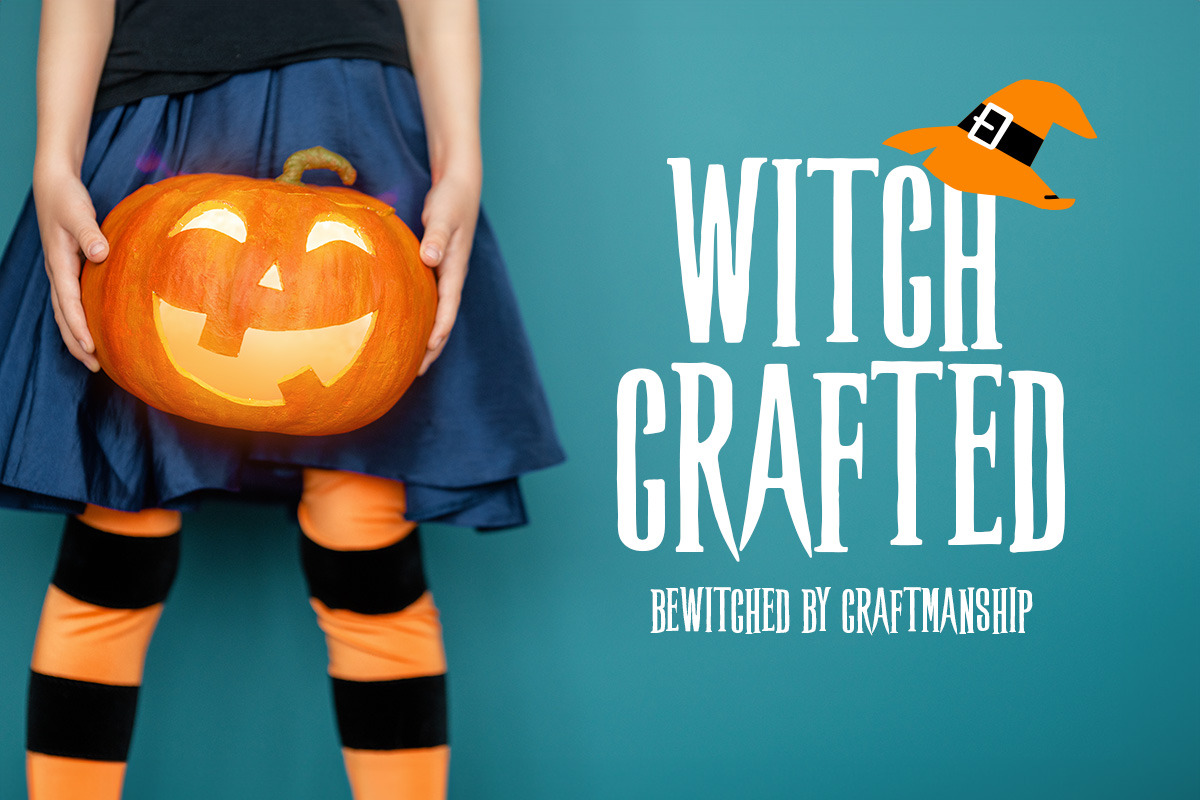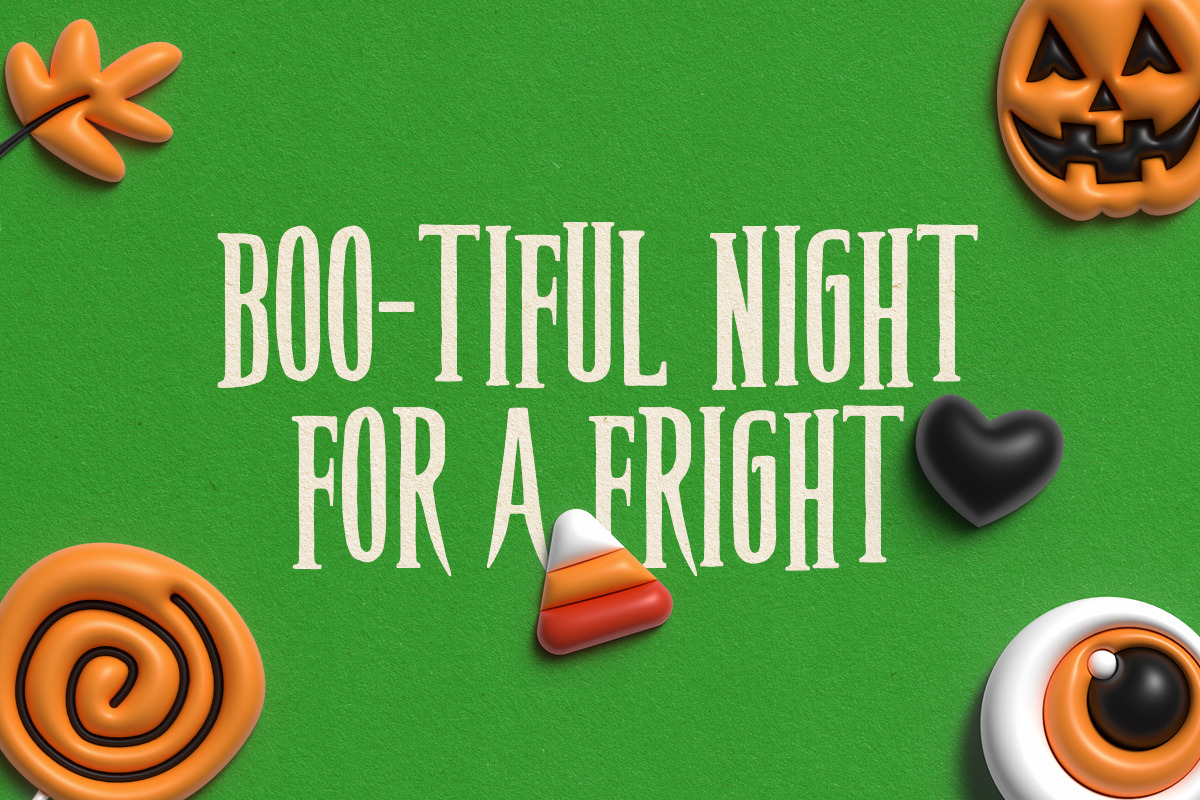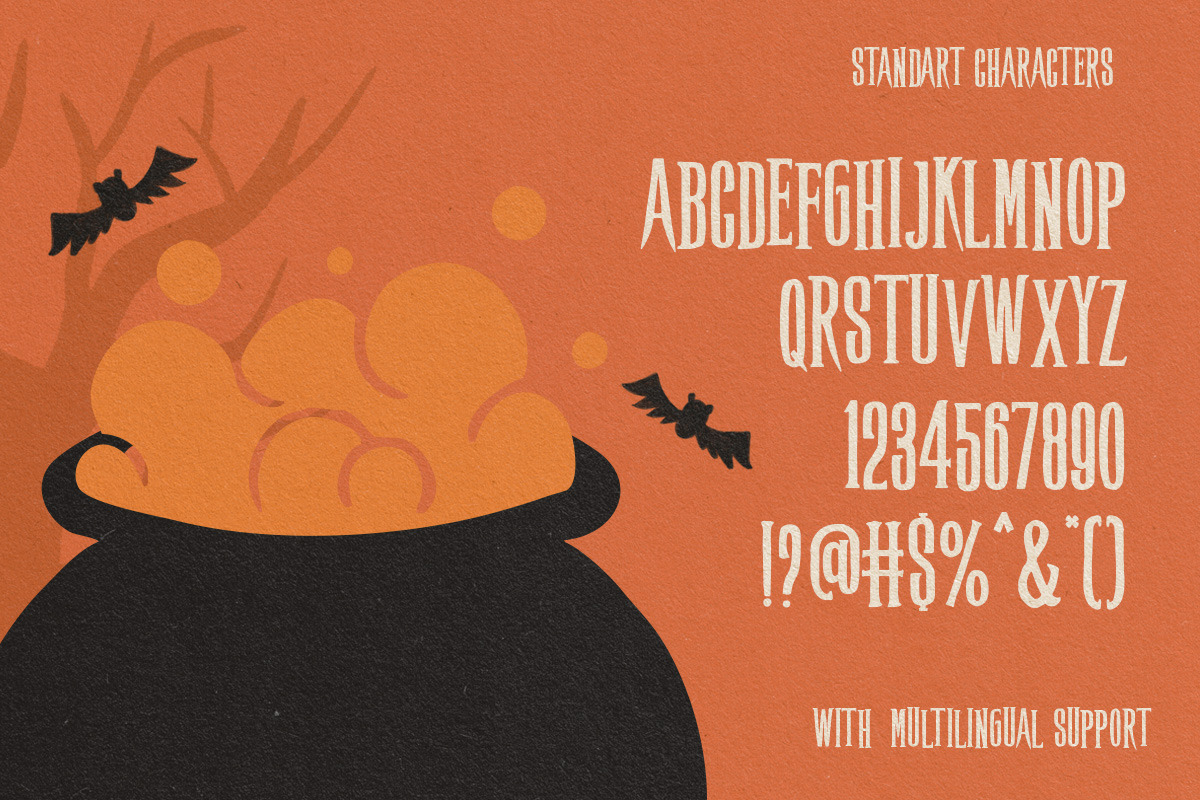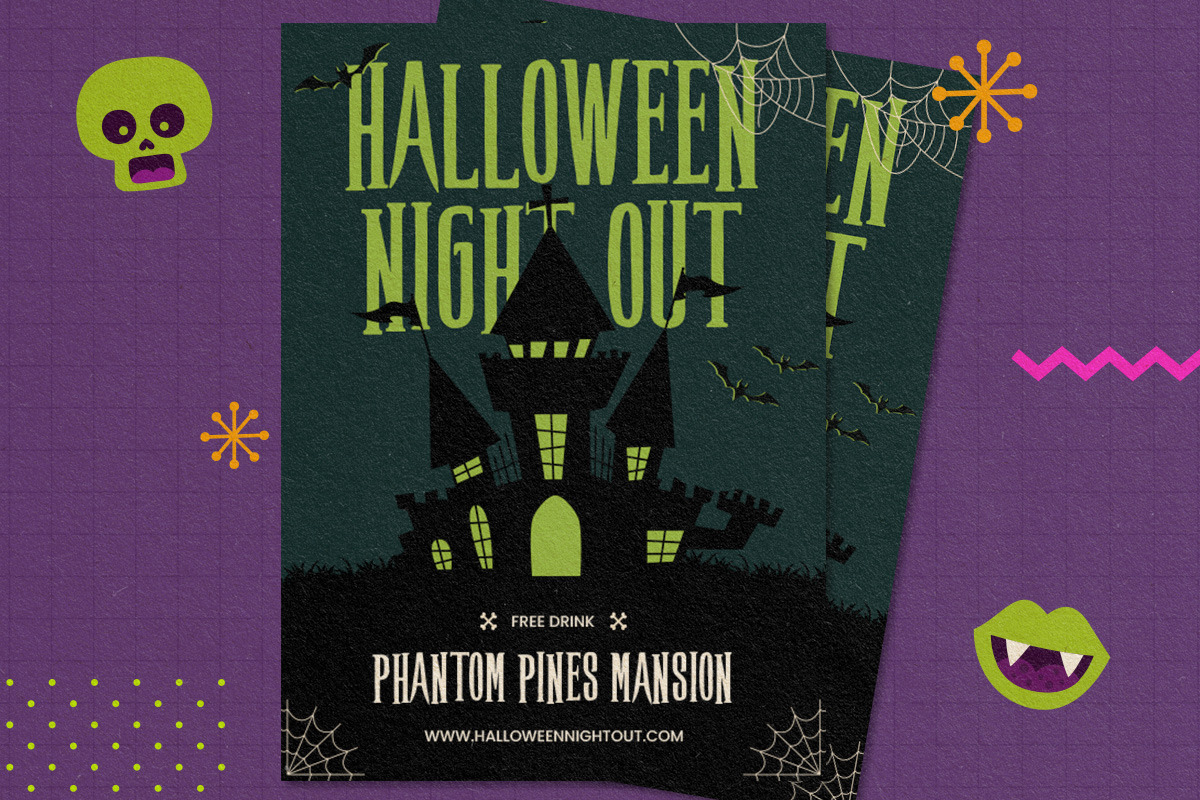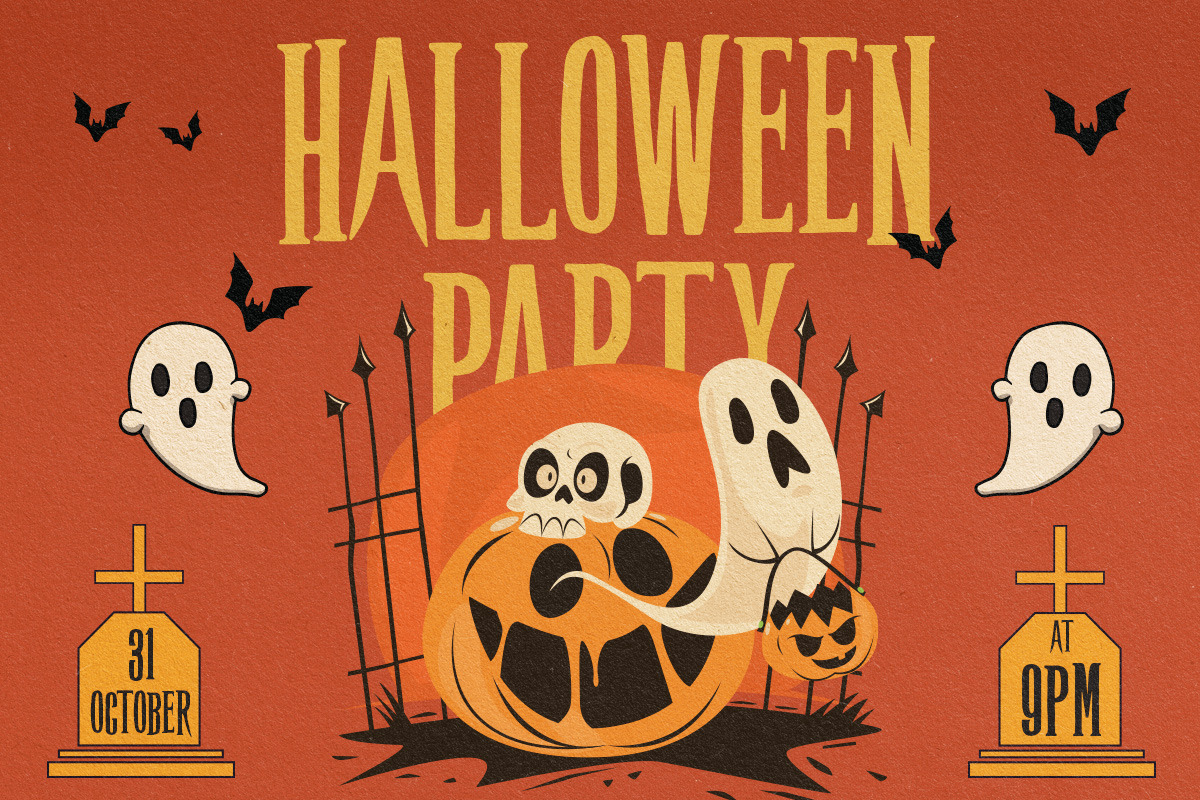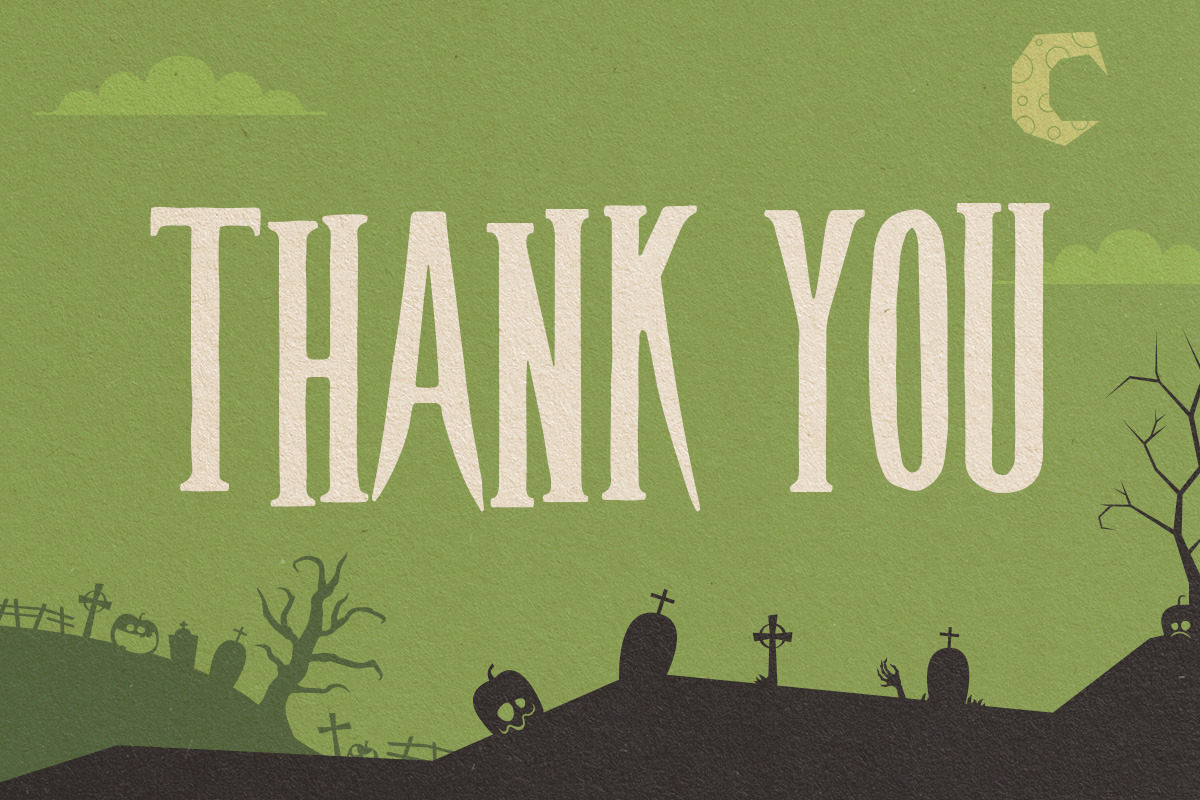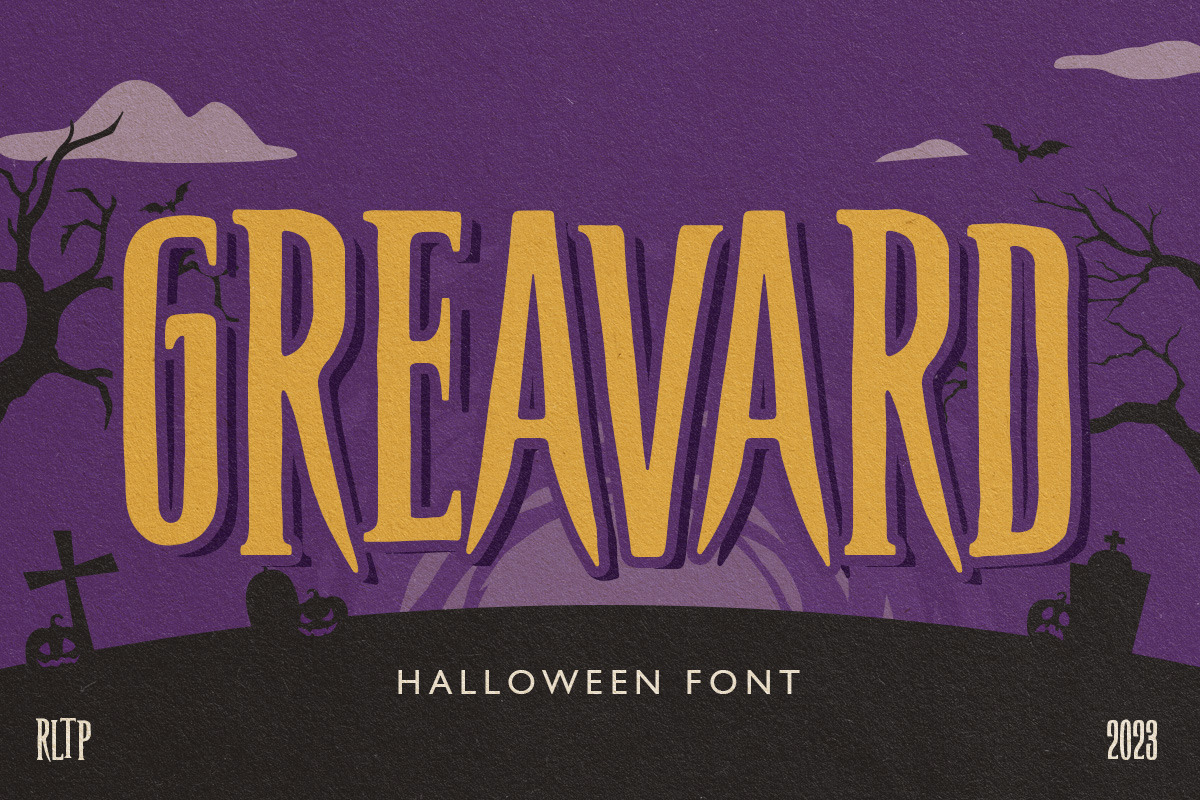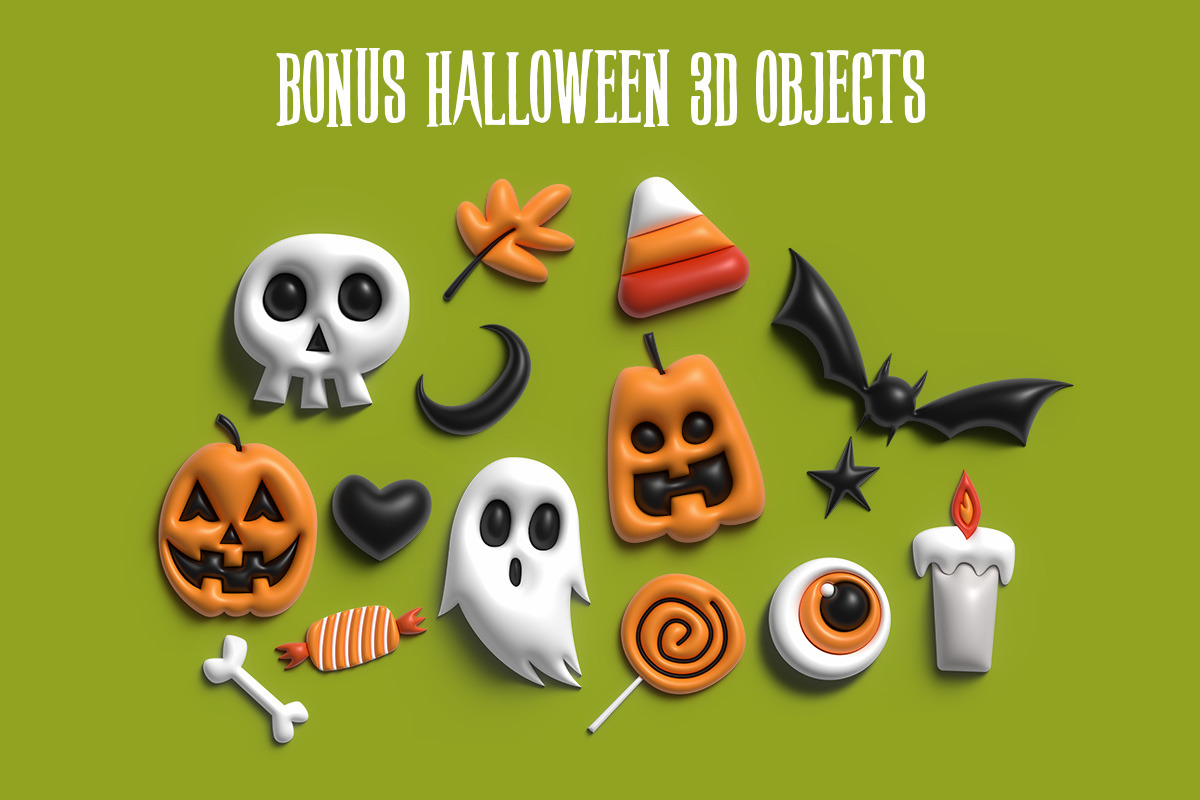
Gravard - Halloween Font
Introducing "Greavard," the ultimate Halloween-themed condensed serif font. With its eerie charm and sophisticated design, "Greavard" is perfect for creating spine-tingling posters, invitations, and more. But that's not all – when you purchase "Greavard," you'll also receive a bonus of 15 high-quality 3D Halloween-themed objects in PNG format. From creepy pumpkins to ghostly lanterns, these extras will take your designs to the next level. Unleash your inner Halloween spirit with "Greavard" and craft bewitching designs that leave a lasting impression. Don't miss out on this limited-time offer; grab "Greavard" today and let your creativity run wild in the shadows.